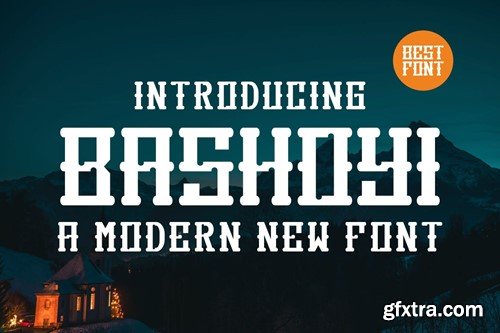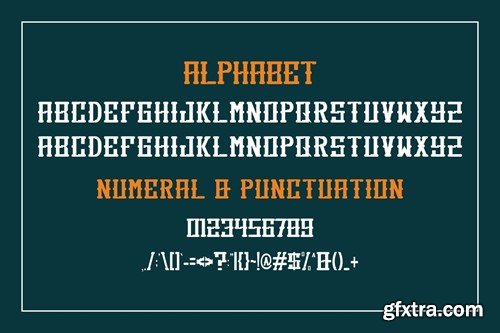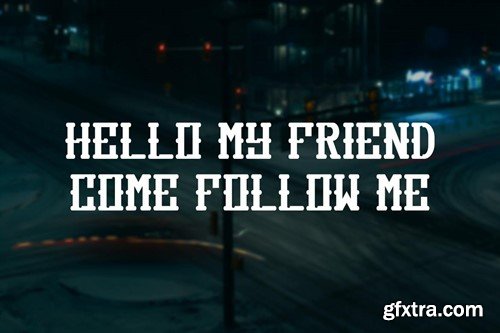
巴斯约伊现代未来主义装饰字体VBRHD3X
Bashoyi Modern Futuristic Decorative Font
Introducing Bashoyi Modern Decorative Font. Bashoyi is a modern and simple font, best used as a display for headings, logos, branding, magazines, product packaging and invitations. Bashoyi come with clean lines and smooth curves give any project an extra touch of class. What you get: Thank you.